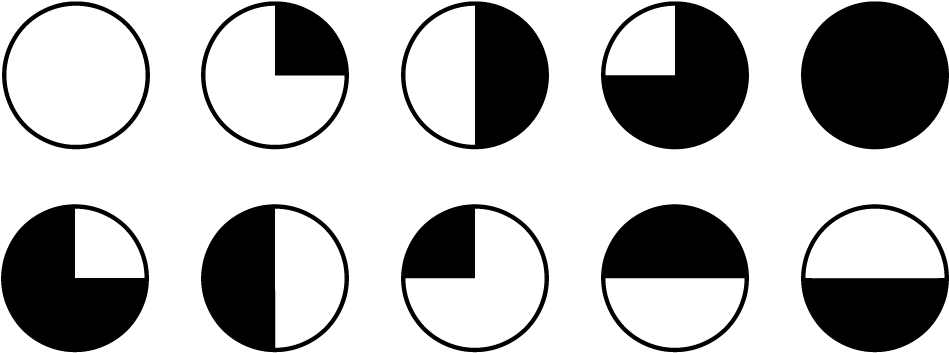
Here are the most commonly used forms of harvey balls: Harvey balls with true type fonts.
This harvey balls font powerpoint download is a multicolor template with a beautiful circle image.
Harvey balls font powerpoint download. Free harvey balls for powerpoint presentations. A vivid slide design with three blocks and arrows will simplify the process of topic representation. Using the font is simple.
Harveyballs font free download, latest version 001.001, using the font is simple. Free harvey balls for powerpoint presentations. Its minimalistic design will fit any business presentation.
Choose from standard empty, 1/4, 1/2, 3/4 and full harvey balls. You do not need a special harvey ball font. That selects the first of the harvey balls, the empty white.
There are harvey ball templates that can break up the. Harveyballs font free download, latest version 001.001, using the font is simple. Choose from standard empty, 1/4, 1/2, 3/4 and full harvey balls.
This approach can be helpful for anyone who need to create a slide design or any other graphic design using harvey balls. Using the font is simple. Harvey balls with true type fonts.
Download this colorful harvey balls font powerpoint. Make a 1/3 harvey ball, 2/3 harvey ball, etc) by entering a. Enter 33% for a 1/3 filled harvey ball).
You can align, resize and recolor the harvey balls easily. They are one of those incredibly simple but powerful staples of any business strategy consultant's toolkit. Choose from standard empty, 1/4, 1/2, 3/4 and full harvey balls.
Using the font is simple. You can easily edit the template design, color, theme, background, and fonts. This approach can be helpful for anyone who need to create a slide design or any other graphic design using harvey balls.
Free harvey balls for powerpoint presentations. Harvey balls are those little circles which are all white or quarter, half, three quarter of fully blacked out. Harvey balls powerpoint for mac download;
Add standard size 1/4, 1/2, 3/4, empty or full harvey balls. How to add harvey balls in powerpoint? This makes your two created shapes one and allows you to move your harvey ball around as a whole.
Download harvey balls clipart and graphics harvey balls powerpoint (40798 downloads) 4 best harvey balls powerpoint templates and icons sometimes, using editable powerpoint templates is the best way to save time while preparing a presentation and get. Windows users may need to restart office or even the whole computer if. We used a harvey ball on powerpoint to create this template.
Moreover, the template is fully. Just select the harvey balls font from your application (just like you would select times or arial). Harveyballs font free download, latest version 001.001, using the font is simple.
Every skilled office employee should have such a premade tool in his/her arsenal to cope with job duties quickly and. On the insert tab of the ribbon, click symbol and then more symbols. Using the font is simple.
It will help visualize percentages, figures, or statistics and attach explanations to infographics. Using the font is simple. Using the font is simple.